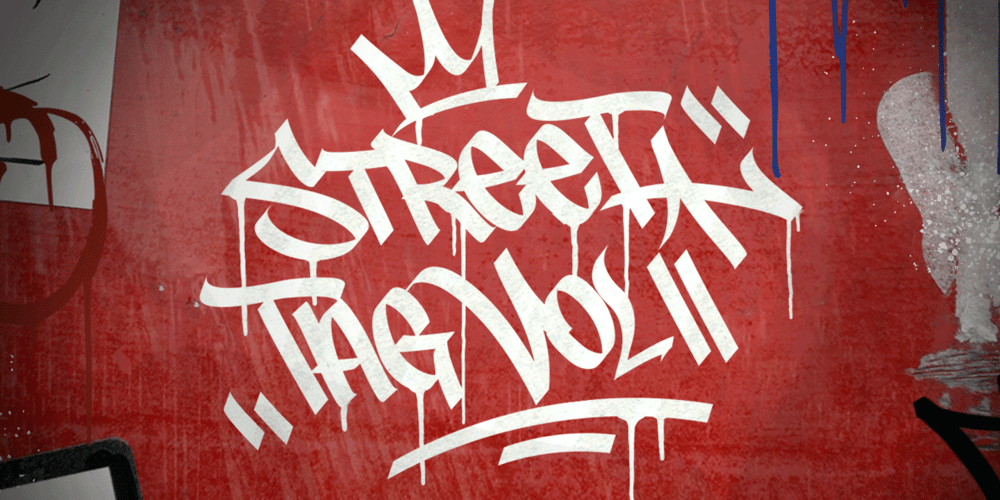
Street Tag Vol 2
Street Tag Vol 2 font
Street Tag Vol 2 Font Family was designed by Cipto Bagus Prakarso and published by Tomatstudio. Street Tag Vol 2 contains 1 styles and family package options. Street Tag vol 2 is the second version of Street Tag fonts. Inspired from realistic caligraphy tagging style in many big cities. This style is more bold and readable, perfect for your “street art” designs style. I combined the real graffiti experiences into computer fonts, I think it will be different with other fonts if you can feel it, cause I draw graffiti, tagging and throw ups since I was high school.The real tagging style is never be tidy, but don’t worry, I already adjust the kerning and spacing in the best possible way. You’ll find the better result when you adjust the kerning, and edit baseline manually, especially for the alternates font, if you unfamiliar with these one, you can find many tutorials in youtube, for the example https://www.youtube.com/watch?v=251cTL029M4.what will you getYou’ll get some alternates in several alphabet, see that in the font preview, some sample fonts I change the dot in “I” to stars, and I add ‘ into “O”, sometimes we do that in the real walls! You can explore more with this font!